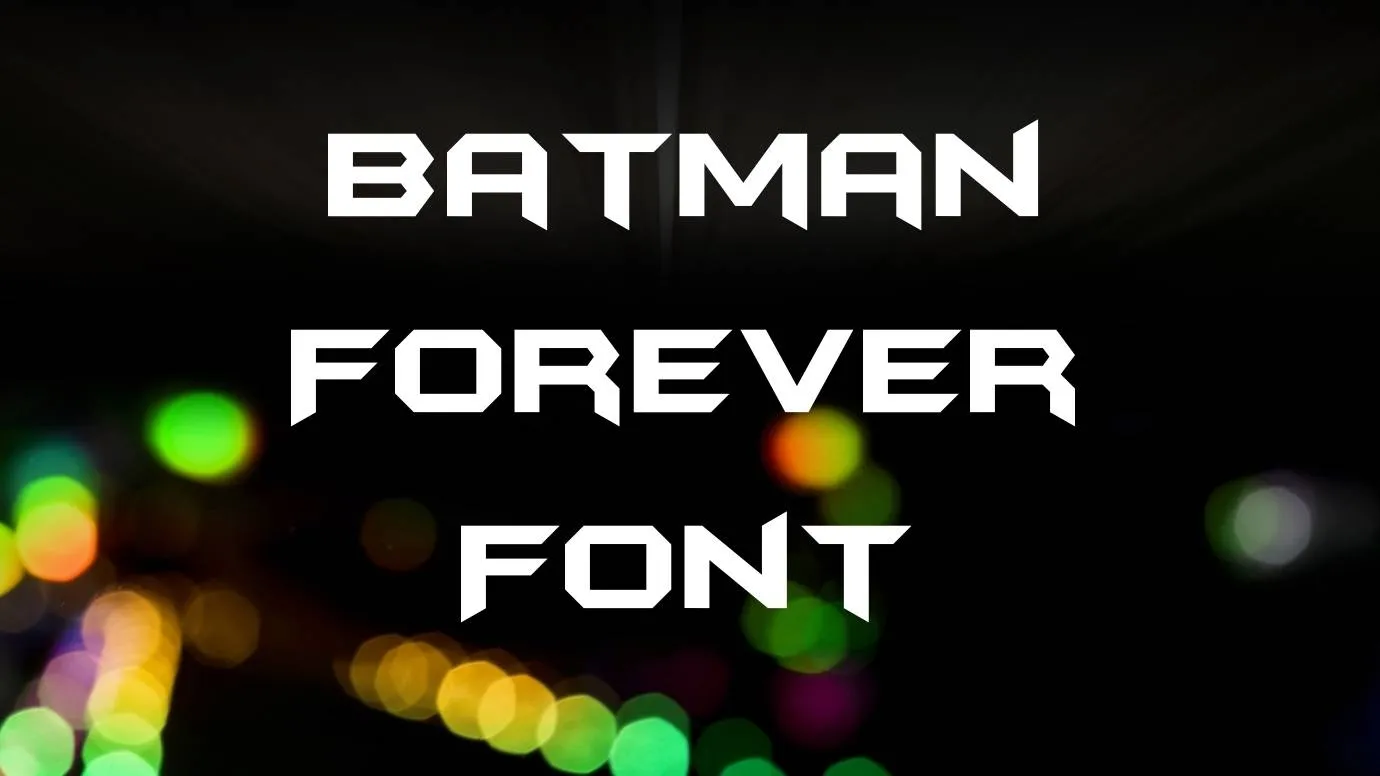
Font Introduction
Batman Forever Font Family is a stylish and contemporary font ideal for giving designs a distinctive and appealing appearance. Inspired by the movie logo “Batman Forever,” this font captures the essence of the renowned American superhero film. Directed by Joel Schumacher in 1995, the movie is celebrated for its focus on superhero themes.
The font that is used in this movie logo was designed by a font industry named Fontsly. It is a brand font and it got huge fame in the font market because of the popularity of movie logo designs. This font has gorgeous look that creates effective designs. Many designers use this font for creating more similar designs by making pairing it with the jersey font. This font is an attractive typeface that makes a readable and unique texture.
| Name | Batman Forever Font |
| Type | Logo |
| Designer | Fontsly |
What type of font is Batman Forever Font?
This font is a logo typeface because it is used for the first time in the creation of an American movie logo and its characters are most similar to other display fonts.
What designed Batman Forever Font?
This cozy typeface was developed by a popular font foundry known as Fontsly on the base of the movie name title.